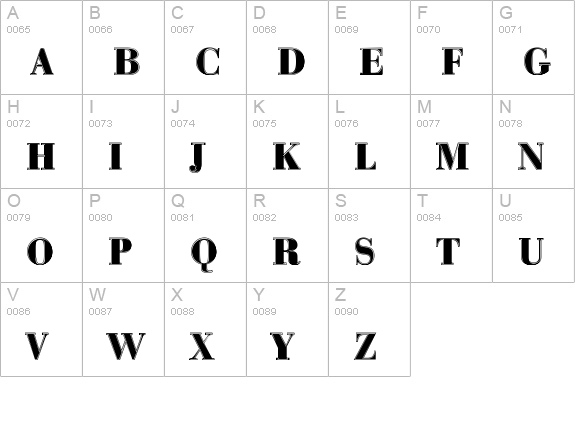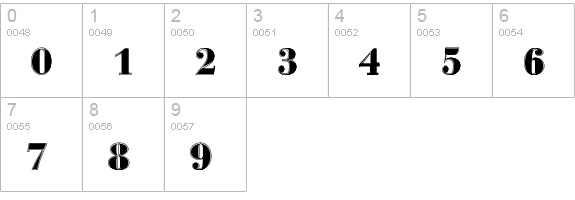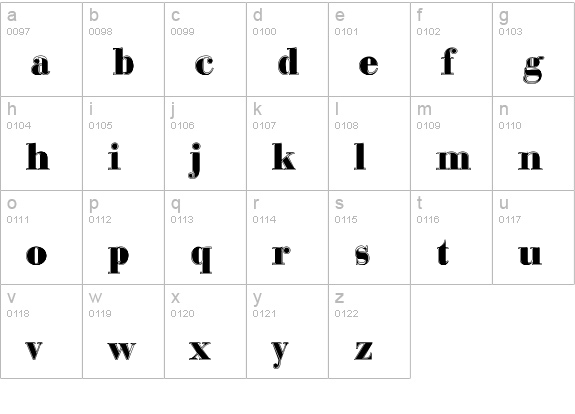
Bauer Bodoni T Bold In1 is a strong, high-contrast variant in the Bauer typeface family \xE2\x80\x94 well suited to headlines, attention-grabbing titles, and strong calls-to-action.
Bauer Bodoni T Bold In1 font is a timeless and elegant typeface that exudes sophistication and style. Its bold weight commands attention while maintaining a sense of grace and refinement. The sharp serifs and clean lines give this font a modern twist on a classic design, making it versatile for a variety of projects. This font is a must-have for designers looking to make a bold statement with their typography. Whether used for headlines, logos, or editorial layouts, Bauer Bodoni T Bold In1 font adds a touch of sophistication and professionalism to any design. Best of all, this font is available for free download at FontsMarket.com. So go ahead and elevate your designs with this exquisite typeface today!